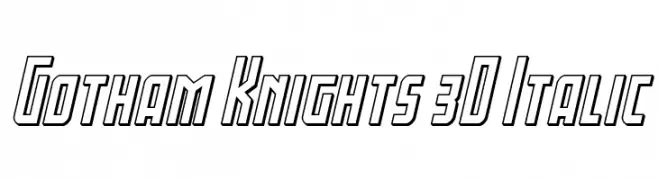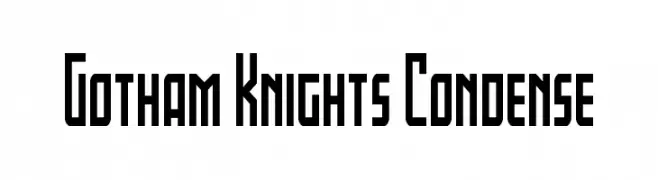
A bold, geometric, and condensed font with a modern and futuristic style.
A bold, geometric 3D font with sharp angles and clean lines.
A bold, geometric font with angular lines and a modern aesthetic.
A bold, slanted, and geometric font with a dynamic and energetic style.
A bold, angular, and futuristic font with a strong slant and geometric style.
A bold, condensed, and italicized font with a dynamic and futuristic style.
A bold, 3D italic font with geometric, outlined characters.
A bold, condensed font with a modern, geometric style.
A bold, 3D geometric font with outlined characters and a futuristic style.
A bold, condensed, and italicized font with a modern, angular design.